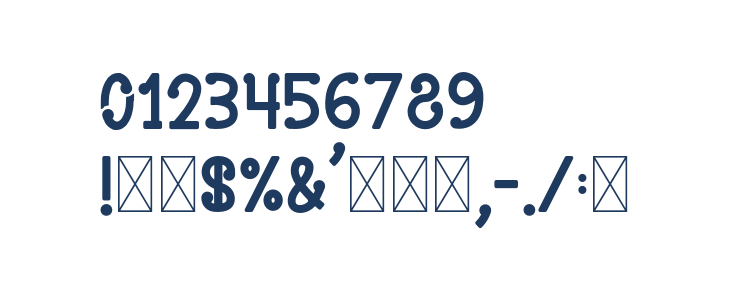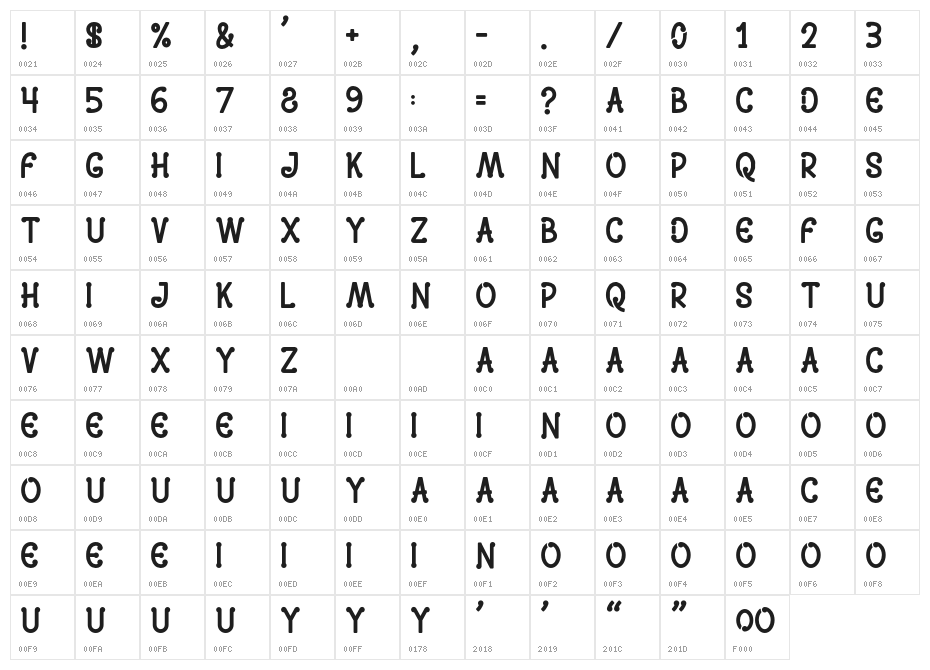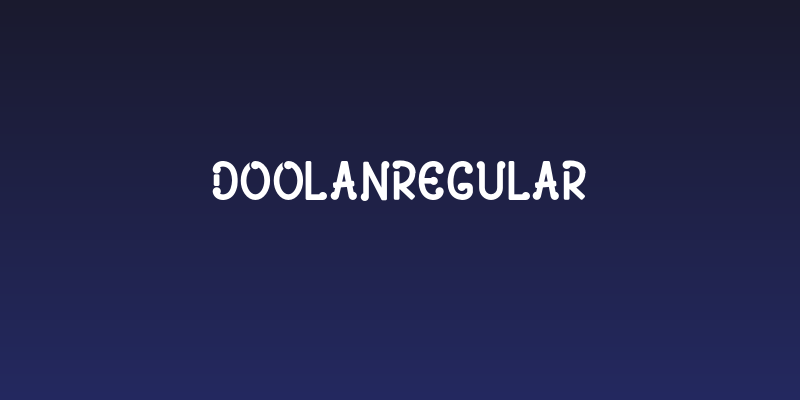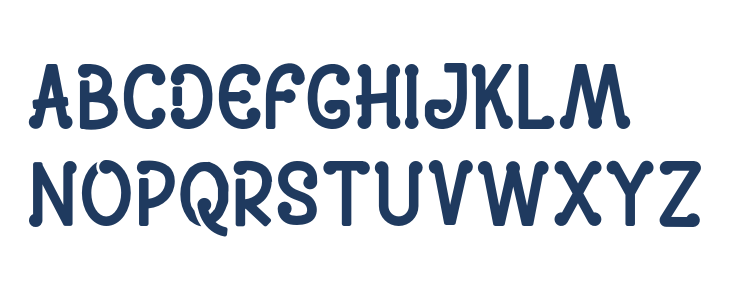
DOOLANRegular Font
This font features a bold and playful design with rounded edges and a slightly retro feel. The characters are thick and uniform, with a consistent stroke width that gives it a strong presence. The uppercase letters are particularly eye-catching, with unique curves and shapes that add a touch of whimsy. The numbers and special characters maintain the same bold style, ensuring a cohesive look across all text. This font is ideal for projects that require a fun and engaging typeface, such as children's books, posters, or branding for creative industries.
| Overall Style | Retro, Playful |
| Proposed Projects | Ideal for children's books, posters, and creative branding. |